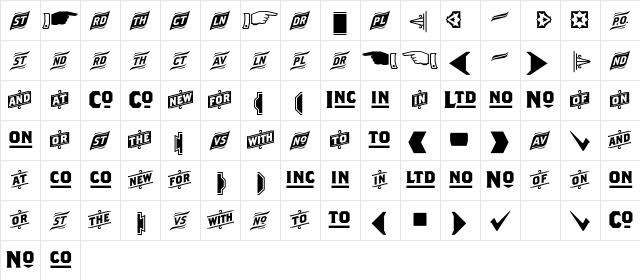
Brothers WordLogos Free Font
Brothers WordLogos
Style: WordLogos
Design Context for Brothers
Brothers is a composed and adaptable typeface that performs quietly and consistently across a wide range of design contexts.